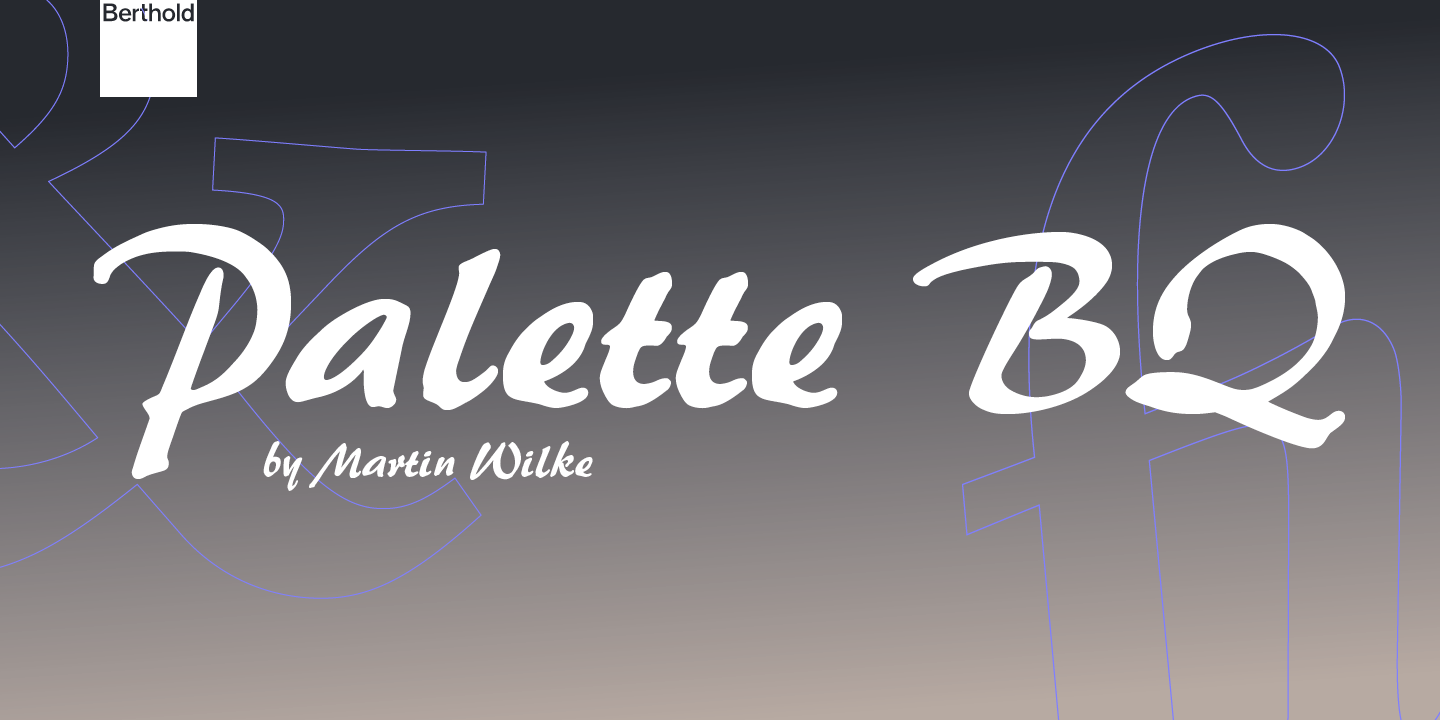
Palette Font is perfect for artistic design projects including art supply stores, painting studios, creative workshops, art gallery exhibitions, design agencies, color consulting firms, artistic portfolio presentations, and vibrant creative campaigns. This colorful typeface works perfectly for art schools, creative education programs, graphic design studios, artistic therapy centers, and projects that celebrate the beauty and expressive power of color theory and artistic creativity.
What makes Palette Font exciting is its vibrant artistic character that perfectly captures the essence of color creativity and artistic expression. The font features dynamic letterforms with palette-inspired styling that reflects the rich diversity and creative potential of artistic color combinations. Its colorful design elements embody the spirit of artistic experimentation and creative exploration, making it perfect for projects that need to convey creativity, inspiration, and connection to artistic culture. The carefully crafted palette proportions create an atmosphere of artistic sophistication and creative authenticity.
Palette Font comes in multiple family variations including colorful, artistic, creative, and vibrant styles. Each weight maintains the distinctive artistic character while offering different levels of creative intensity and palette presence. The font family includes artistic alternates, creative ligatures, and palette variations that provide designers with comprehensive options for creating truly expressive and authentically artistic typographic compositions that celebrate creative excellence.
Whether you're designing artistic branding, creating colorful marketing materials, or developing creative promotional graphics, Palette Font Free Download provides the perfect typographic foundation for projects that celebrate artistic excellence and creative sophistication. This remarkable typeface transforms ordinary text into compelling expressions of artistic wisdom and creative energy. Download this vibrant font today and color your design projects with the artistic authenticity and creative refinement that captures the essential spirit of color theory and artistic expression.